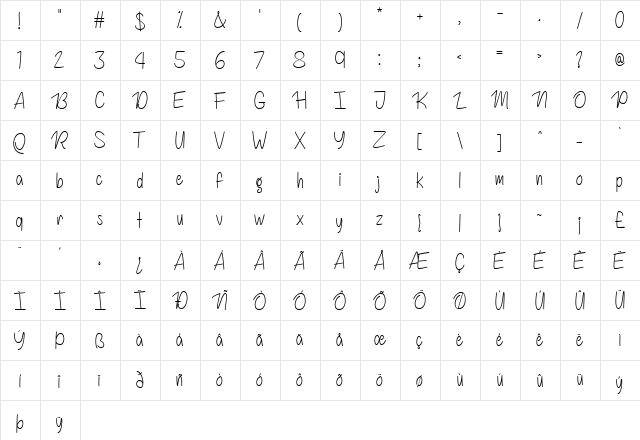
Never Ever Regular
| Designer | Misti's Fonts |
Never Ever is a composed and adaptable typeface that performs quietly and consistently across a wide range of design contexts.